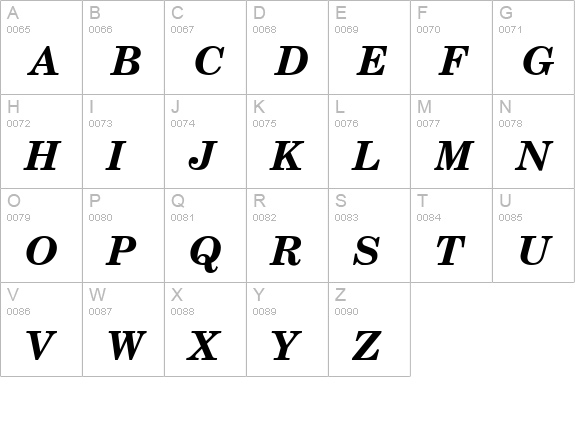
Century Schoolbook Reprise SSi Bold Italic Font Details
Century Schoolbook Reprise SSi Bold Italic is a strong, high-contrast, italic variant in the Century typeface family \xE2\x80\x94 well suited to headlines, attention-grabbing titles, and strong calls-to-action.